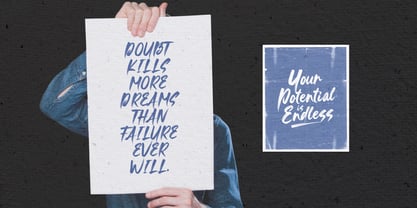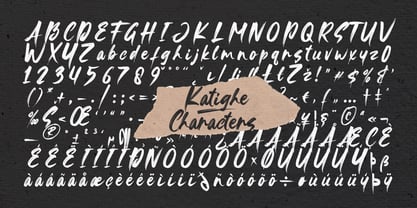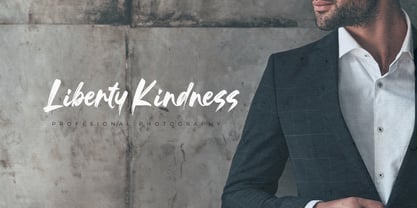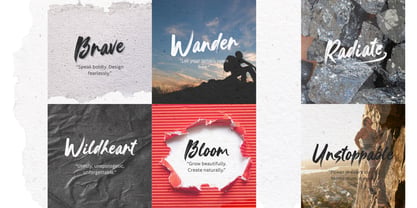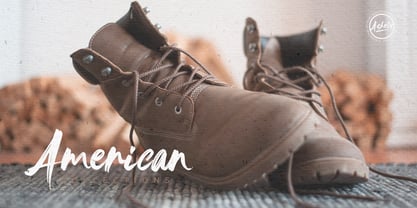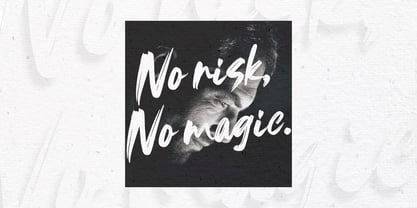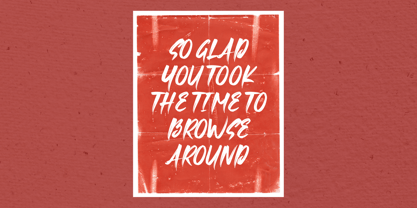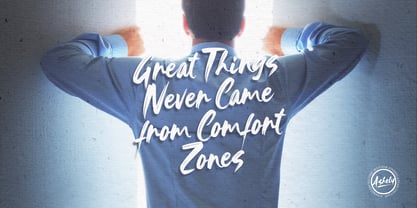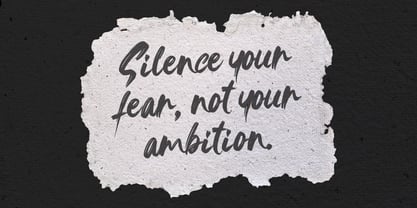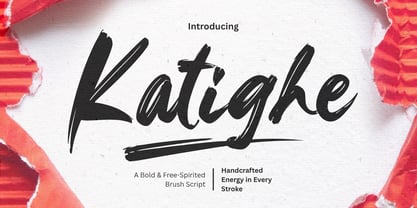
Katighe
by Gatype
The Katighe Font Family was designed by khaidir and published by Gatype. Katighe contains 1 styles. More about this family
Introducing Ashely – A Bold & Free-Spirited Brush Script
Say hello to Ashely, a vibrant brush script font with an effortlessly stylish attitude. Crafted to mimic real hand-painted strokes, Ashely brings natural texture and fluidity into every letter — perfect for designs that want to stand out with character and charm.
From bold branding and product packaging to standout social media graphics, posters, or merch –Katighe gives your words a sense of motion and personality.
• Full set of upper & lowercase script letters
• Punctuation & multilingual support
• Bonus swashes and alternates to elevate your compositions
Let your creativity flow with Katighe – where every stroke speaks boldness, freedom, and flair.